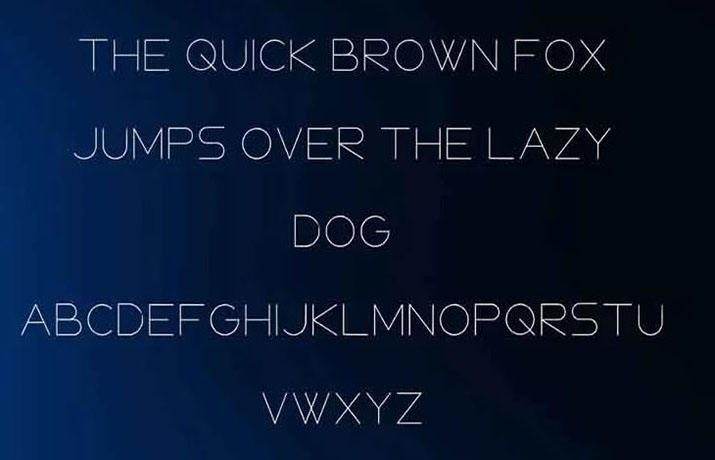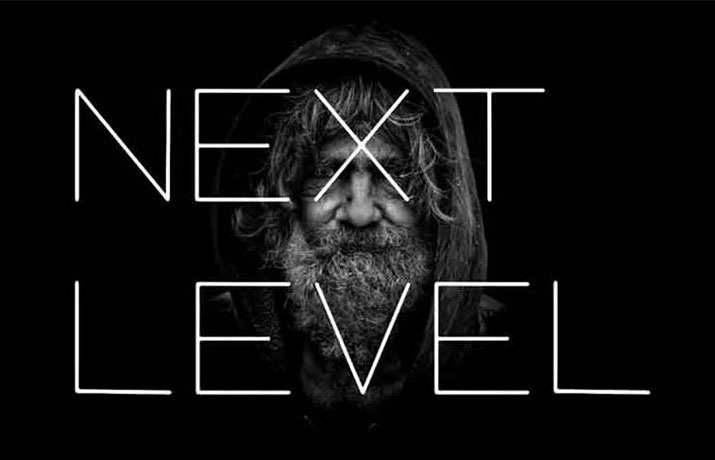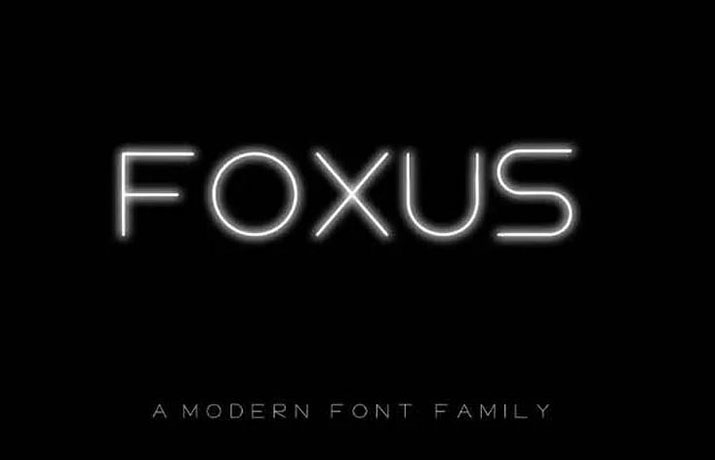
FOXUS Font is a modern and minimalist sans serif typeface that also has a futuristic feeling. It was designed and published by Nestype.
The designer has created texture with sharp lines and geometric shapes and he uses light strokes for all textures that give it a sense of technology, space, and the future.
You can use this modern-looking font for multiple purposes such as projects related to space, technology, science fiction, posters, headers, futuristic, titles, flyers, gaming, and more.
“FOXUS typeface comes in 3 light, regular, and bold variants. This font includes 95 glyphs, uppercase, and lowercase letters. Moreover, it also supports 34 multilingual languages.”
| Style: | Futuristic, Sans Serif, Geometric |
- With its stunning design, you can cover, special event cards, business cards, product design, product packaging, unique signs, website development, book cover, product design, special event cards, game graphics, paragraphs, web content, and social media. Posters can be booked. , websites, headers, banners, blogs, ads, brochures, signs, headers, banners, product designs, and more.